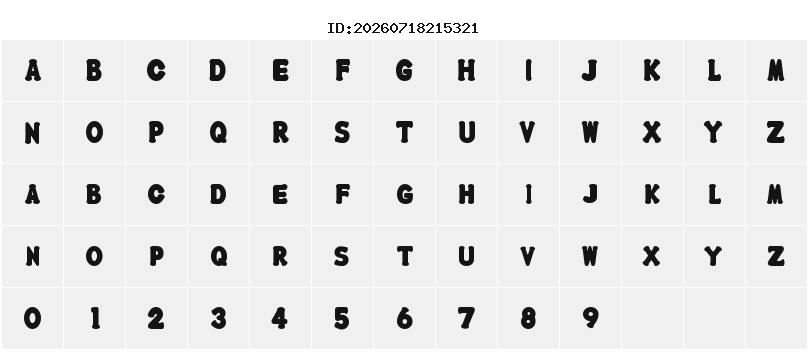
Count and Spell Preview
• Font Name: Count and Spell
• Full Font Name: Count and Spell
• Designer: Daniel
About Count and Spell.ttf
Count and Spell.ttf is a modern, elegant sans-serif font designed for ultimate readability and visual harmony. Perfect for branding, headlines, web design, and print materials.